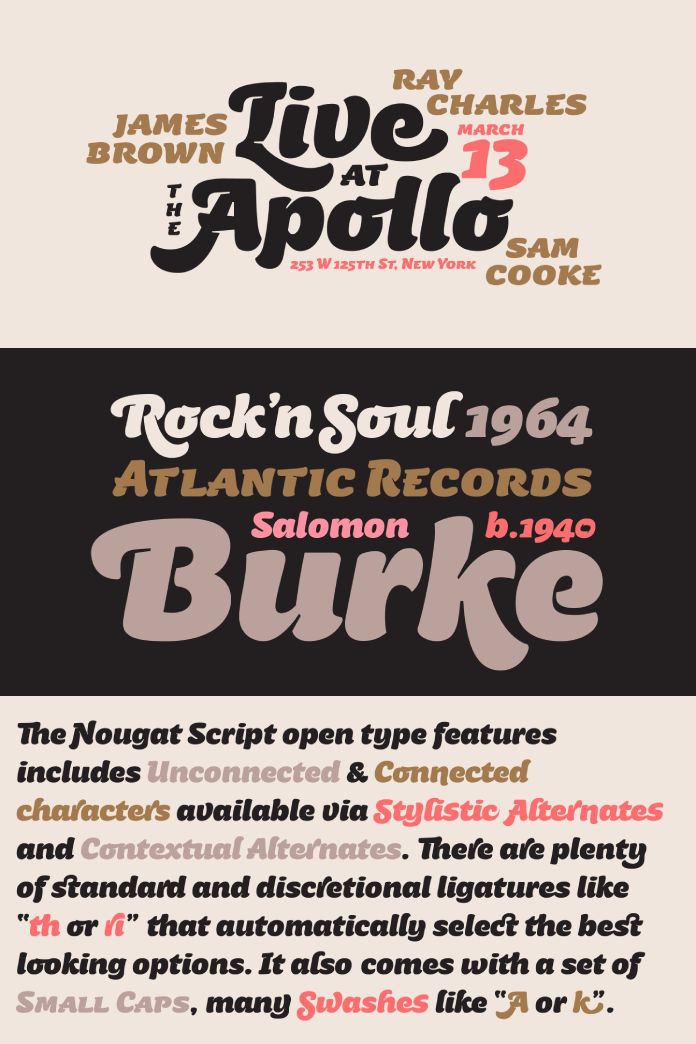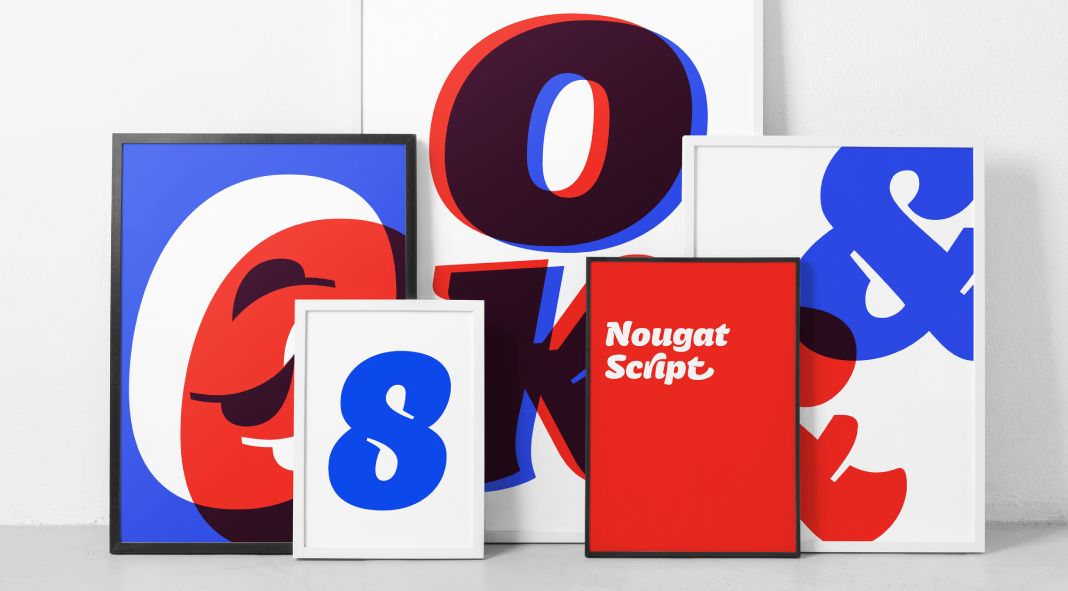
A Font Born from Love: The Delights of Nougat Script by Sudtipos
Nougat Script isn’t just a typeface; it’s a celebration of family. Designed by Aldus De Losa of Sudtipos, the font’s origins lie in a deeply personal moment – the birth of his daughter, Siena. These initial characters blossomed into a project that garnered recognition at Tipos Latinos, a respected platform for Latin American typography.
But Nougat Script’s story doesn’t end there. After a pause, the font experienced a delightful revival. It expanded not just in character count, but also in complexity. Through the magic of OpenType features, a single font file now offers four distinct writing styles:
- Script (Base or Normal): The foundation for your typographic journey.
- Glyphic Alternatives with Swashes: Two options for adding a touch of flourish and personality.
- Small Caps: A sophisticated touch for headlines or emphasis.
Nougat Script masterfully balances casual charm with typographic precision. Imagine lettering that feels both relaxed and elegant – perfect for crafting beautiful and sophisticated text compositions. The font’s versatility makes it a favorite for designers seeking a touch of whimsy and warmth in their projects.
So, if you’re looking for a font that reflects the joy of new beginnings and the timeless beauty of well-crafted typography, look no further than Nougat Script. It’s a font that will add a touch of sweetness – and perhaps a dash of Siena’s magic – to your next design project.